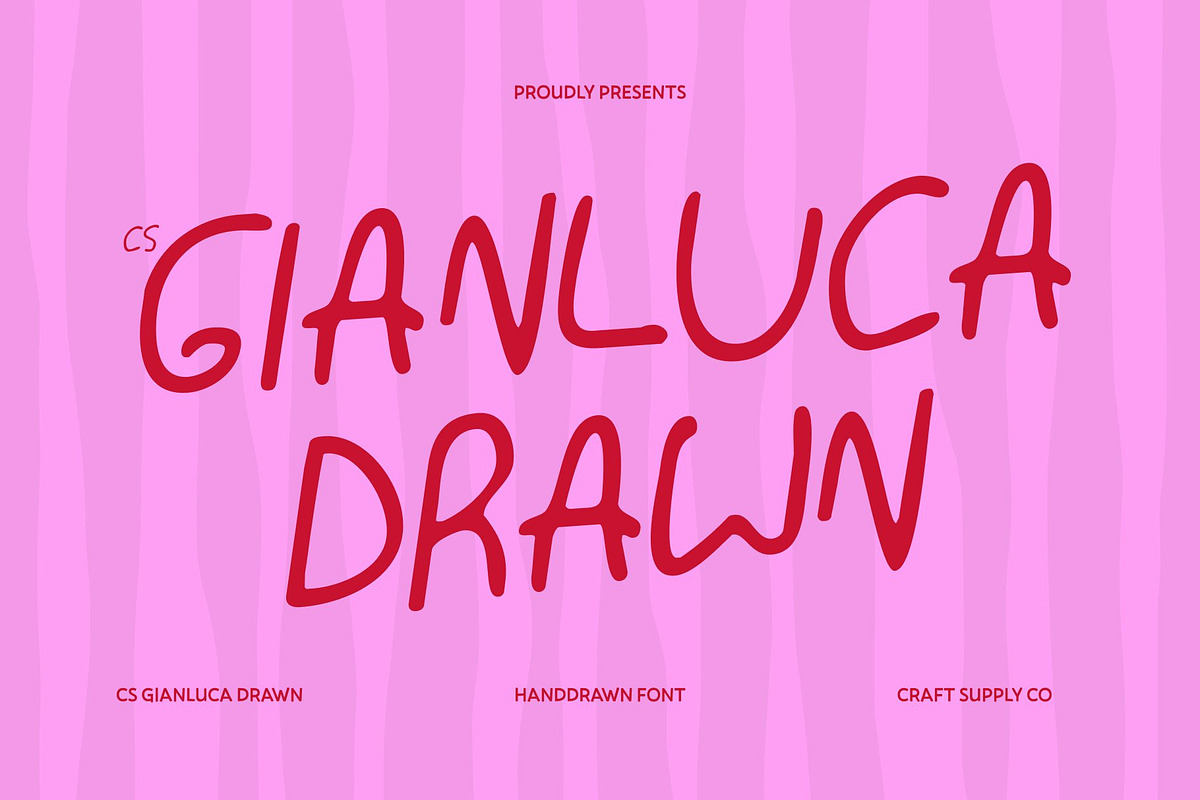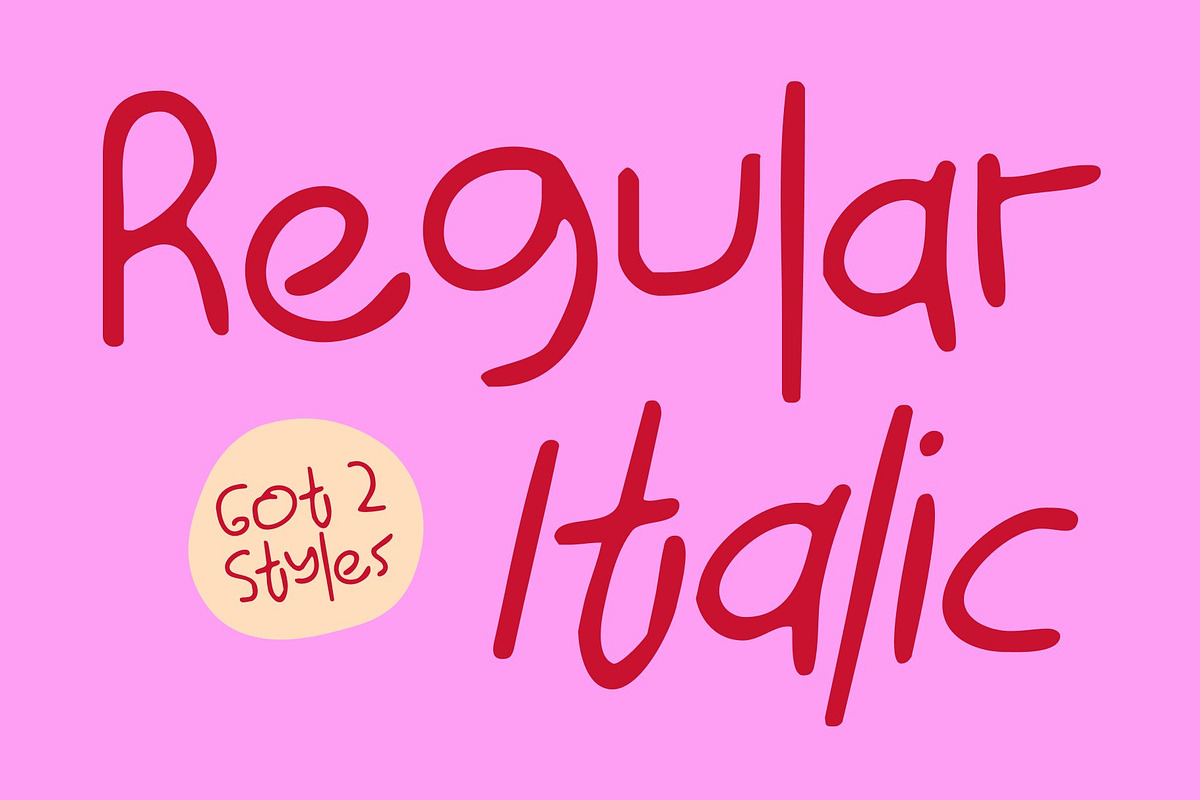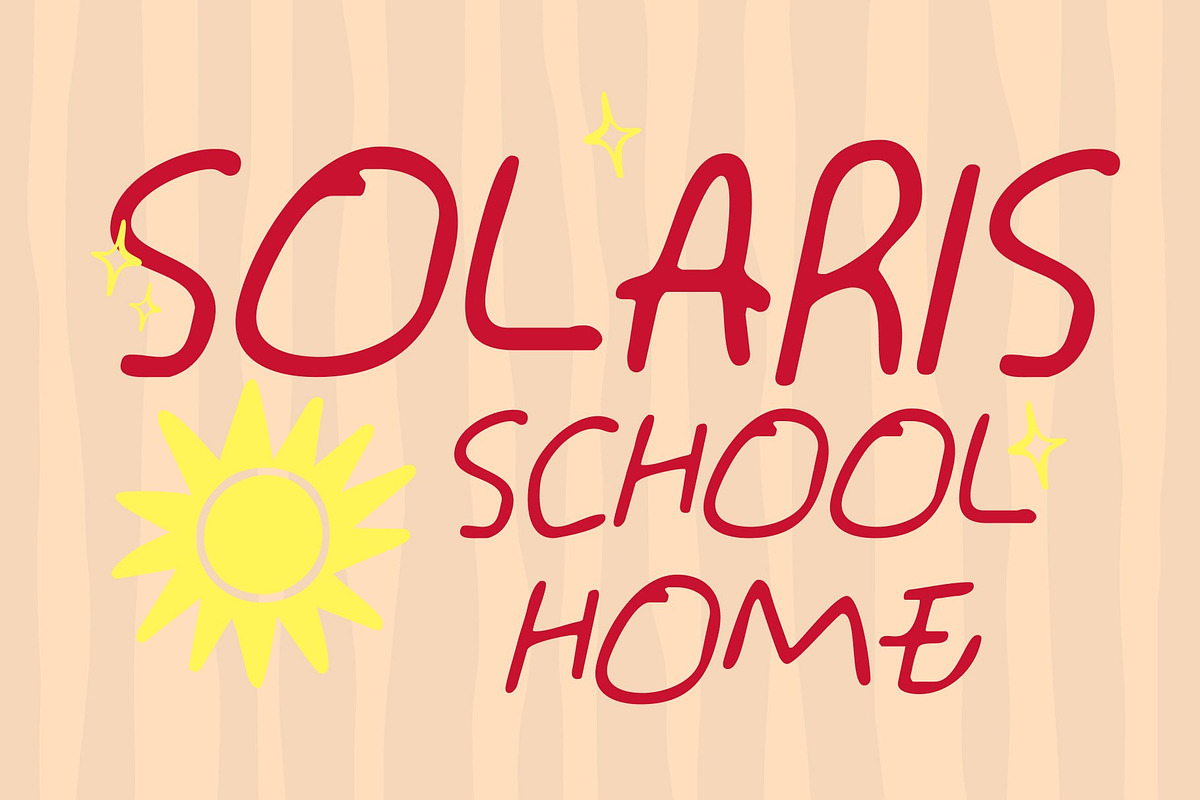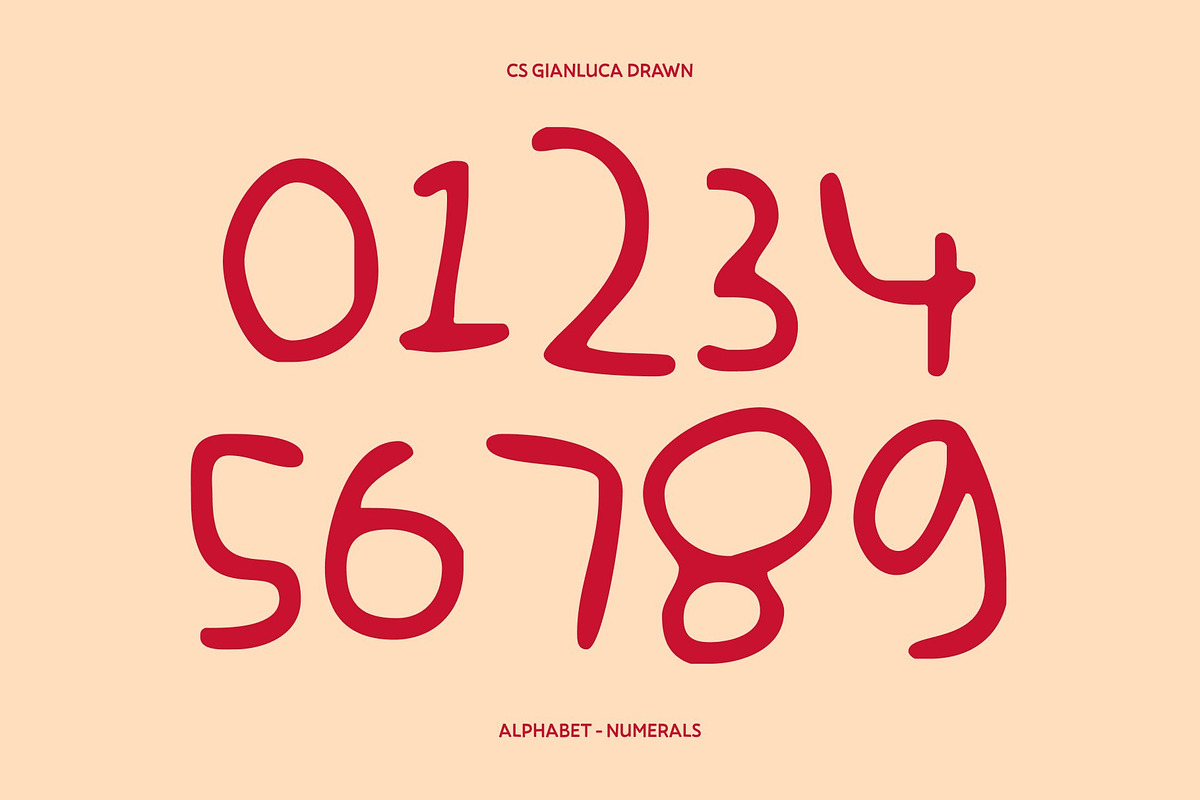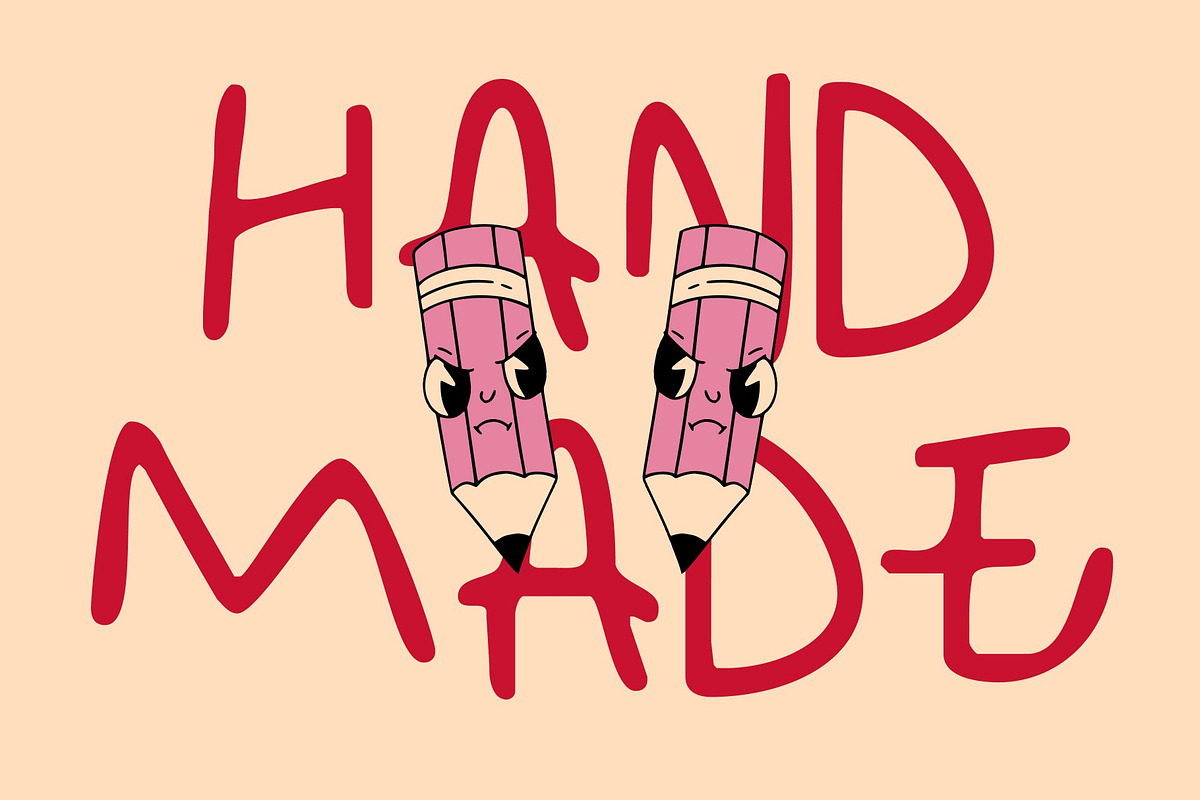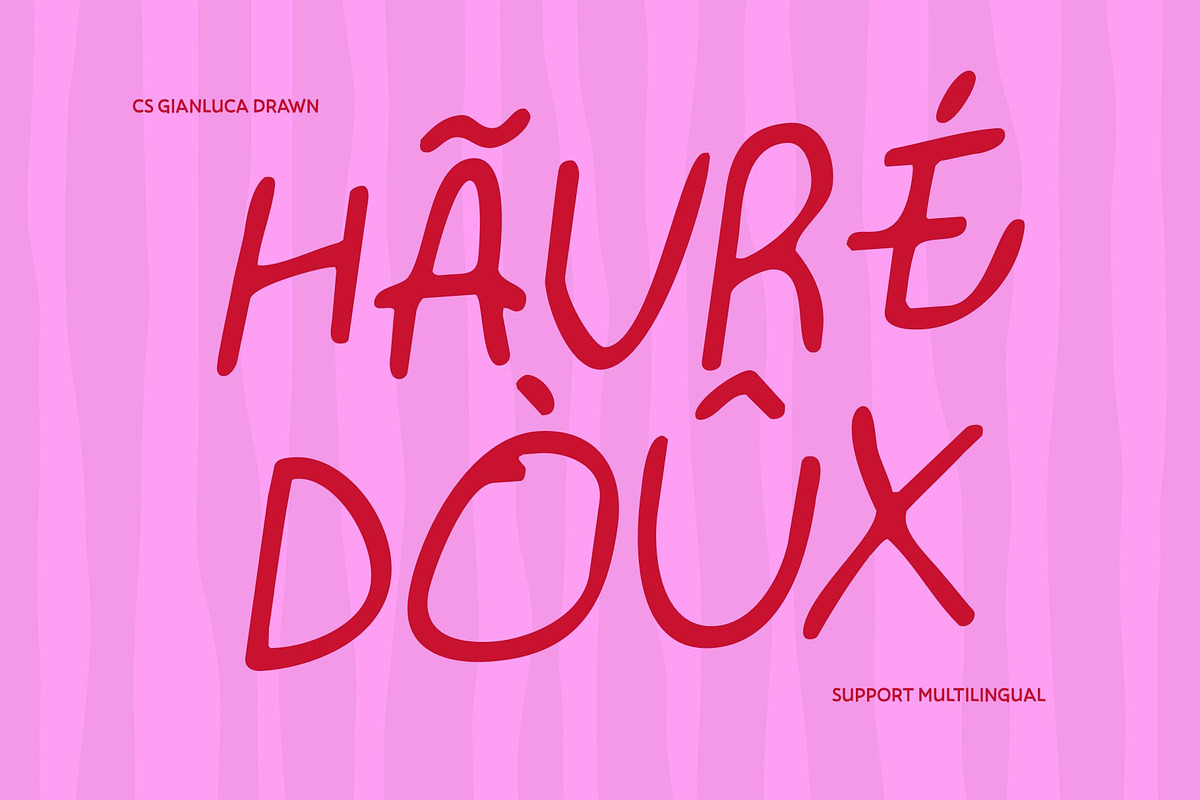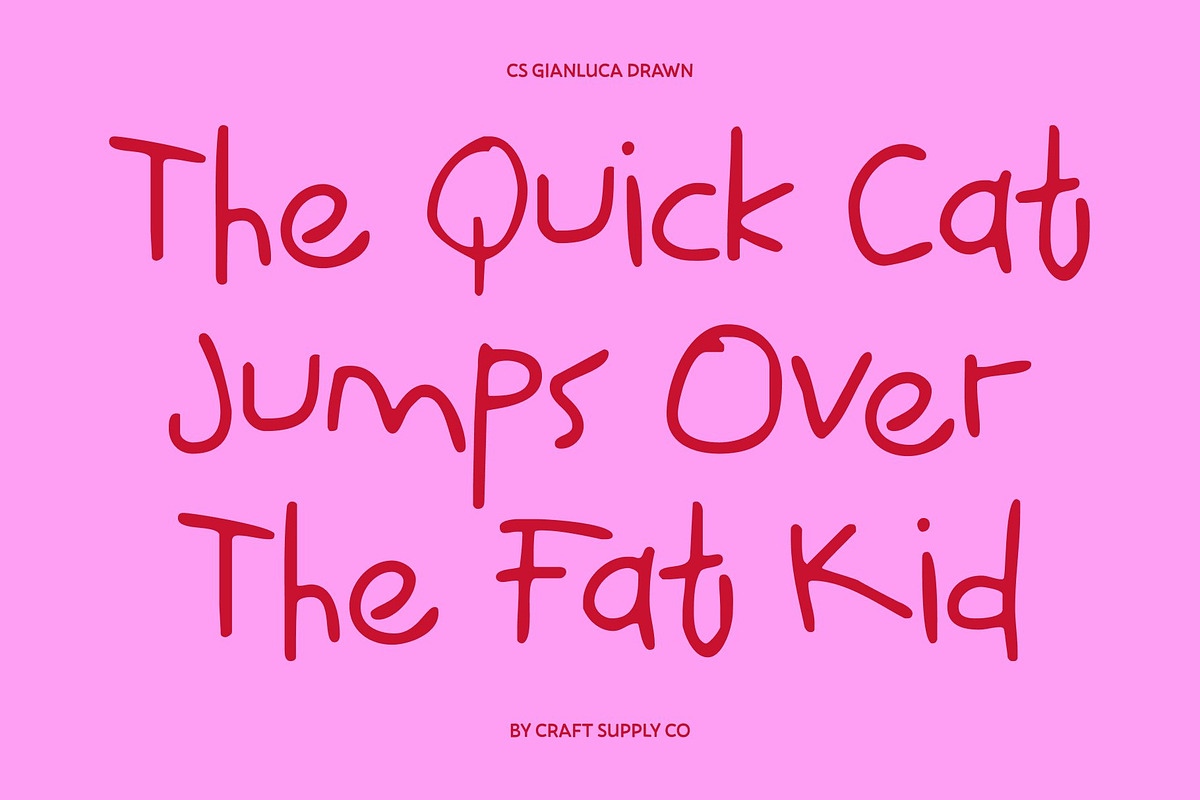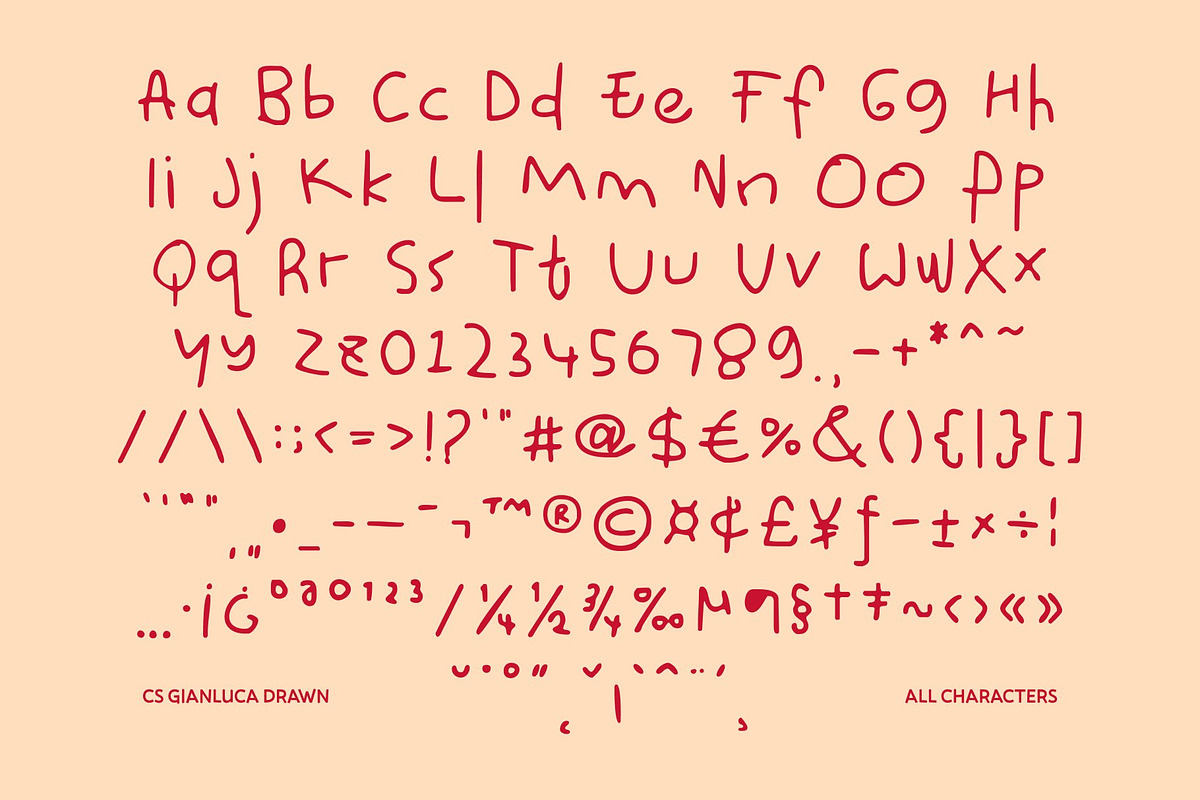
CS Gianluca Drawn
CS Gianluca Drawn – The Art of Messy Expression
Playful Messy Font with Raw Character This is a playful, messy display font that celebrates imperfection with bold confidence. Designed to look spontaneous, irregular, and freely scribbled, it captures the spirit of raw, unfiltered creativity. Each letter feels alive, expressive, and slightly unpredictable, creating a hand-drawn charm that feels authentic and full of personality.
Irregular Shapes with Hand-Drawn Texture The uneven strokes and sketch-like forms give this font a strong visual rhythm and organic texture. Its rough, imperfect edges are intentional adding depth, movement, and individuality to every word. The drawn effect enhances the handmade quality, making the font feel personal, artistic, and refreshingly human compared to overly polished typefaces.
Fun, Energetic, and Creatively Free This font radiates playful energy and creative freedom. Its messy construction evokes the joy of doodling, sketching, and carefree expression. This makes it perfect for designs that aim to feel fun, approachable, and expressive, without worrying about strict structure or perfection.
Perfect for Playful and Expressive Projects Ideal for children’s designs, playful posters, creative branding, handmade packaging, lifestyle graphics, and casual social media visuals, this font adds warmth and character wherever it’s used. It’s a font that values personality over precision bringing bold energy, creativity, and authenticity to every expressive project.